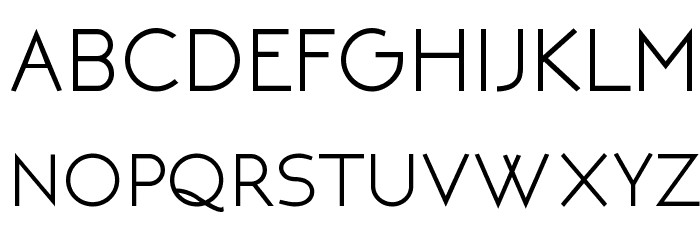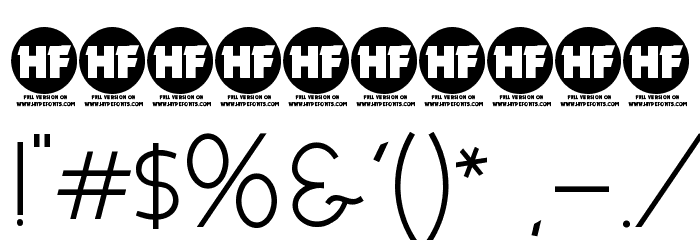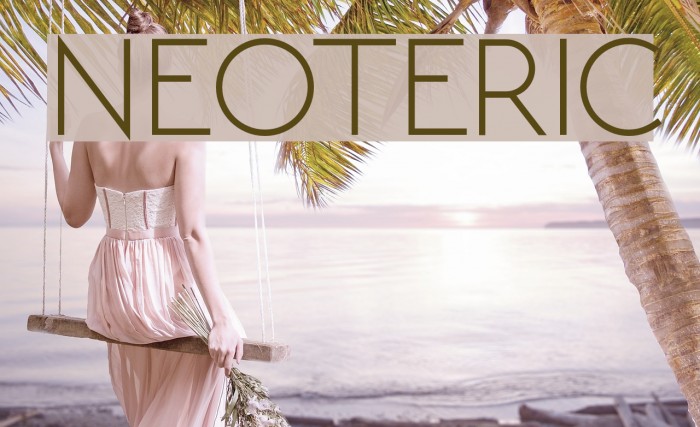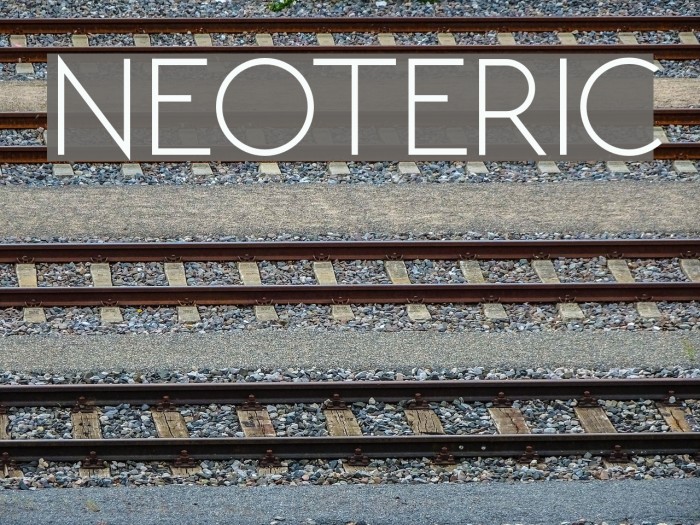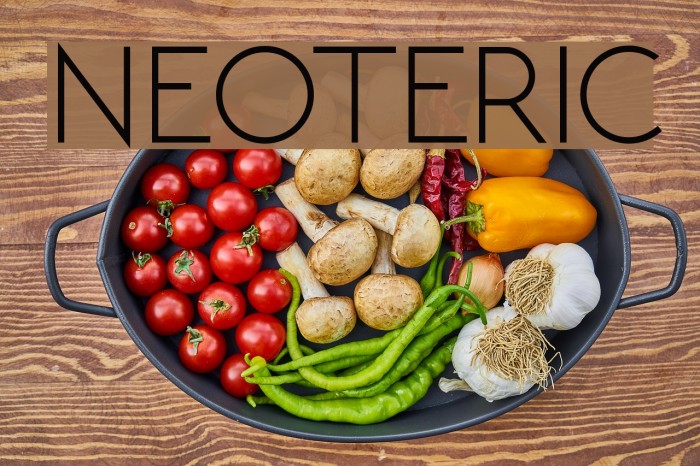
NEOTERIC Font
This font features a clean and modern sans-serif style with a geometric structure. The characters are well-balanced, with consistent stroke widths that provide a uniform appearance. The uppercase letters are bold and prominent, while the lowercase letters maintain a similar weight, ensuring readability across different sizes. The numerals are clear and straightforward, matching the overall aesthetic of the font. Special characters are designed with the same attention to detail, making them suitable for various applications. The font's simplicity and elegance make it versatile for both digital and print media.
A modern, geometric sans-serif font with consistent stroke widths and a clean appearance.
- Proposed Projects: Ideal for branding, advertising, web design, and editorial layouts due to its modern and clean style.